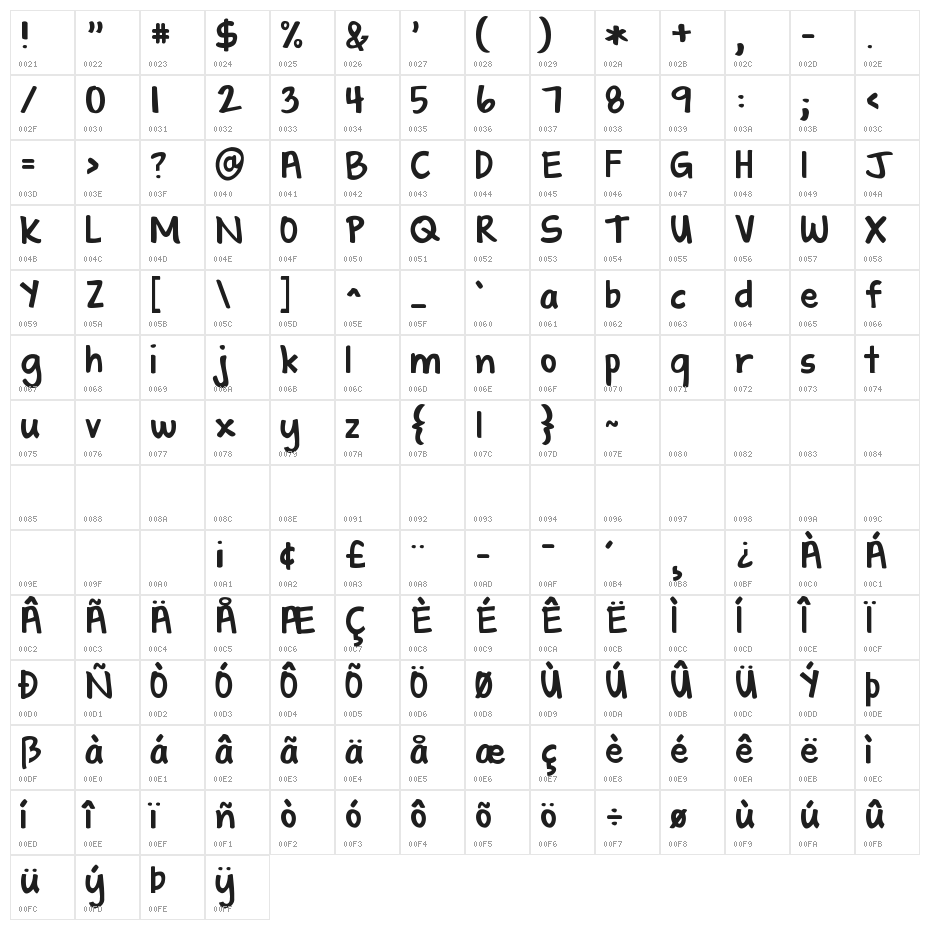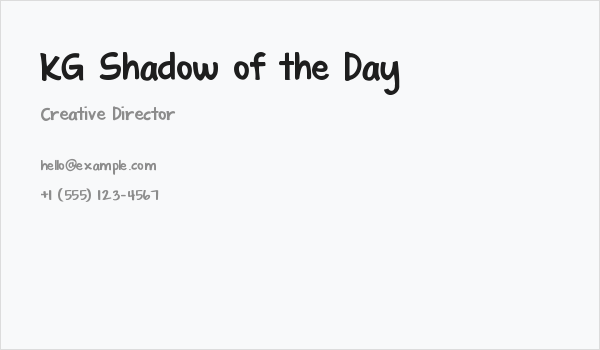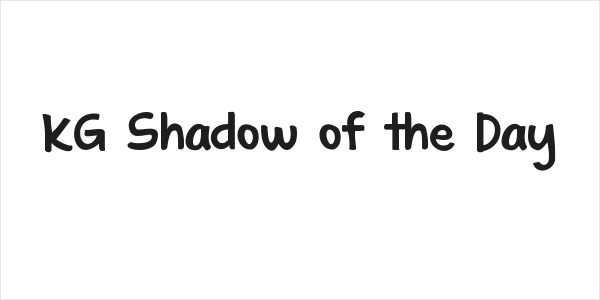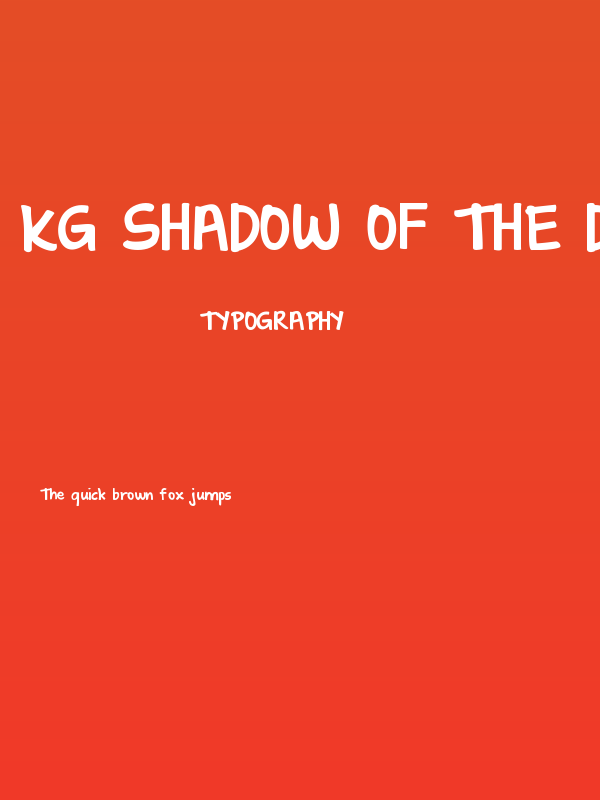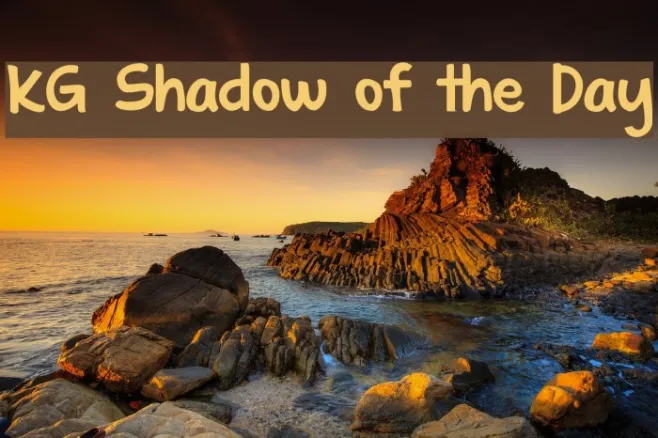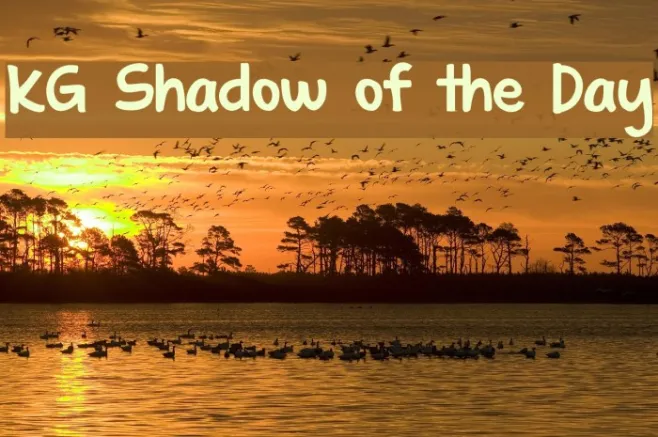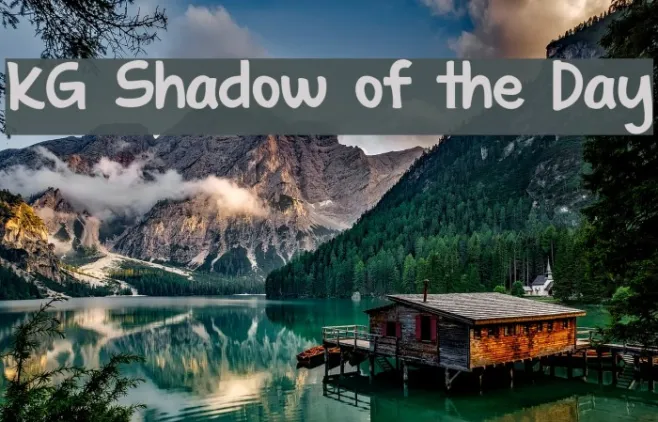
KG Shadow of the Day Font
KG Shadow of the Day Description
This playful and bold font features rounded, thick strokes that give it a friendly and approachable appearance. The characters are slightly irregular, adding a whimsical touch to the overall design. The uppercase and lowercase letters are well-balanced, maintaining a consistent style throughout. Numbers and special characters are clearly defined, making them easy to read. This font's unique style is perfect for projects that require a fun and informal vibe.
| Proposed Projects | Ideal for children's books, playful branding, greeting cards, and casual invitations. |